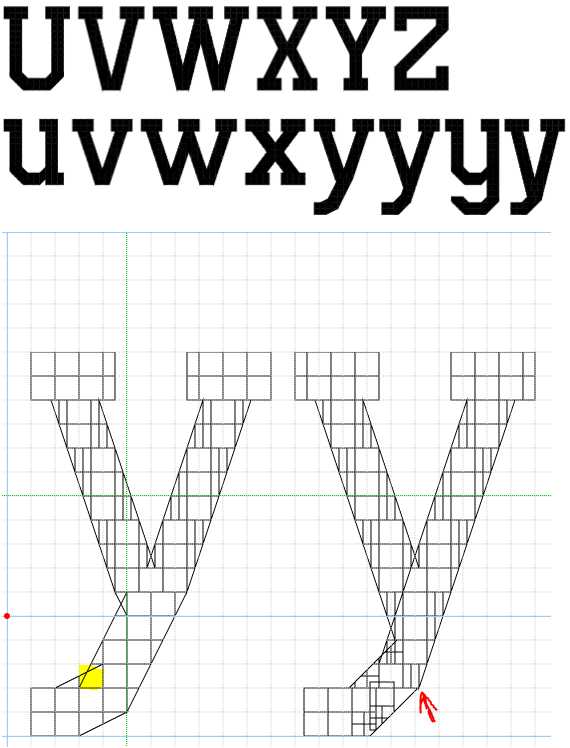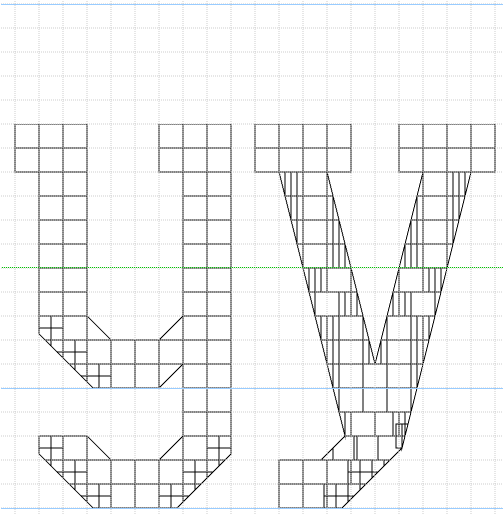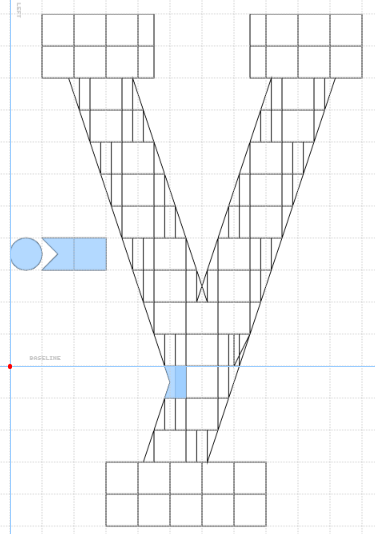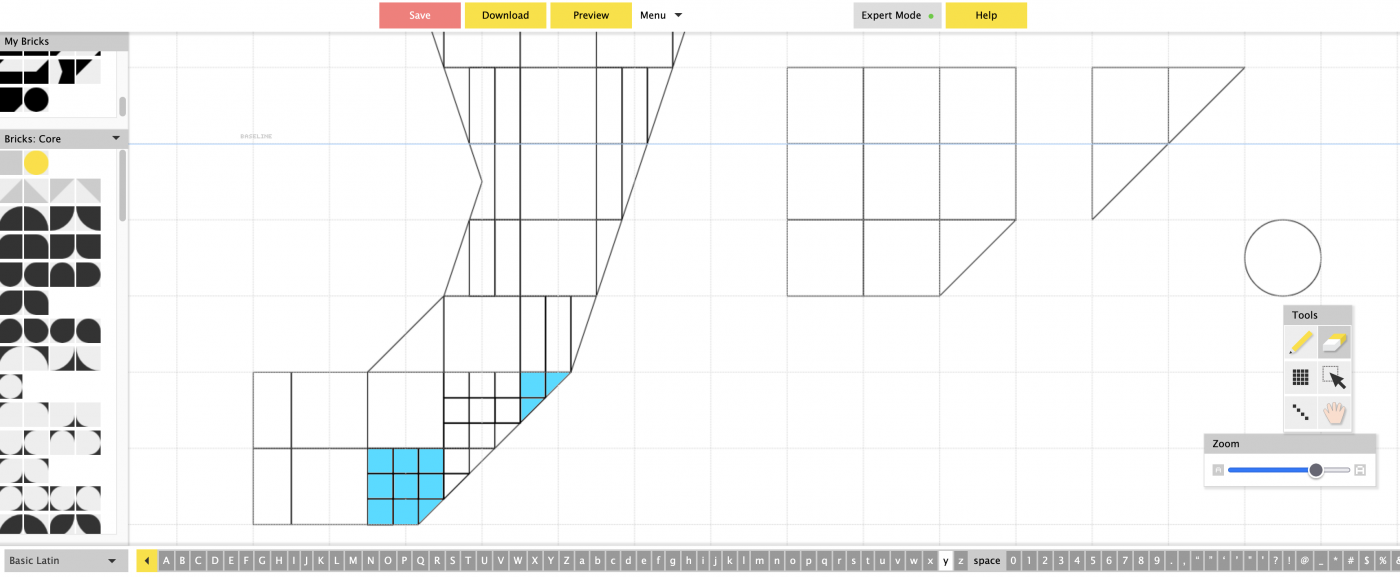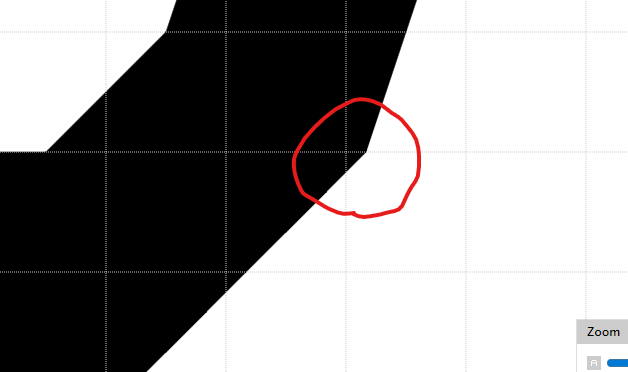
Added Welsh Support
Add support for Irish and Vietnamese.
Shall you add U+1E60, U+1E61, and all characters in the range U+1EA0 to U+1EF9?
btw, that's a circumflex
Added more stuff at Latin-Extended B (we have 1000 chars now!)
Add 0490-04C4 and 04D0-04F5 and 04F8-04F9
Patch 1.04: extended Latin Extended-B, fixed ĢĶĻŅŖ and their lowercases as the comma form is prefered for Latvian [thanks to BWM for pointing that out in my other font Jorgio (I'll get around updating that one too)]
Patch 1.05: Added all Vietnamese diacritical extensions in Latin Extended Additional (U+1EA0-U+1EF9). Plus "Capital/Small F with hook"
Huh, was wondering when somebody would try adding lowercase letters to Personcom Sports... I am impressed
I love the Extended latin and Cyrillic
My small criticisms
The [a] is a bit too wide, and the [b], [g], and [y] could use some tweaking. I also suggest you to try and revise the [w] since it stands out too much among the other lowercase letters
Added ipa extensions
@JOEY_TOYS_ I'm keeping the a and g as they are, but I've modified b and w and their accents, as well as б. If anyone has any idea on how to improve y, please send a sample below.
@Abdulbariyunos I... already added it?
ɷ should look like a closed omega, and not the normal one (you could put the current glyph in U+A7B7, then join the two ends at the top in U+0277 (you may need to shorten the center of it, or it would get confused with U+1DF75 that will be added in Unicode 18))
If anyone has any idea on how to improve y, please send a sample below.
I have few ideas. Simplest would be to make the inner corner of the its tail sharper (yellow brick). Other would be, to draw the right arm lower and then end it with the 45° corner like on g. There I see no way how to make the transition marked with arrow clean.
Then you can also try the combination of u on top and g on bottom, or narrowed V with 45° corner on tail again, this time the transition has clean solution.
a straight line on the descender
That serif is good suggestion, if p and q can have it, so can y.
Fixed y and all its accents, turned w, turned y, ezh, ezh with curl and lambda, and added capital and small s with dot.
my solution (the gap is still there but it's less noticeable).
You can skip the gap cretaing these new 2 composite bricks...
Oops... ~creating.
the gap has been removed, thanks @elmoyenique
@veritasfonts That looks much better
This looks like the font "College" lol